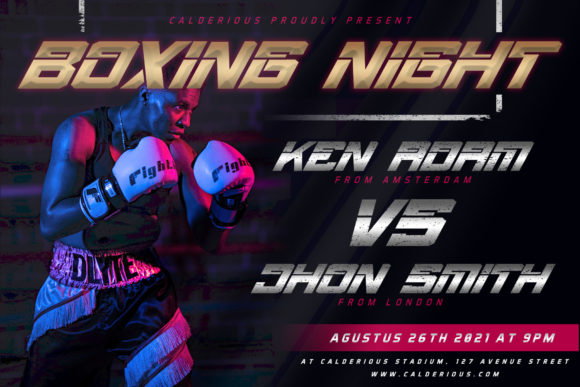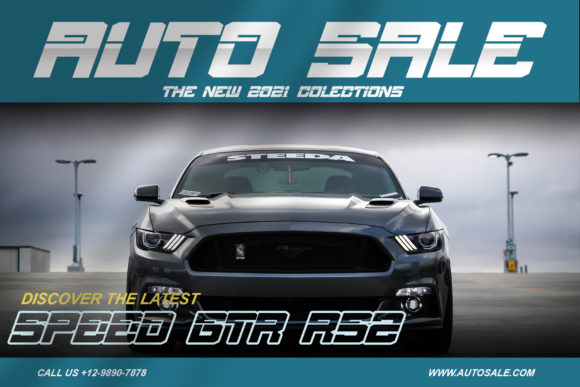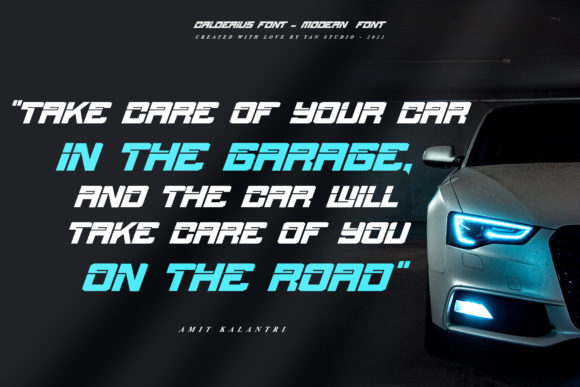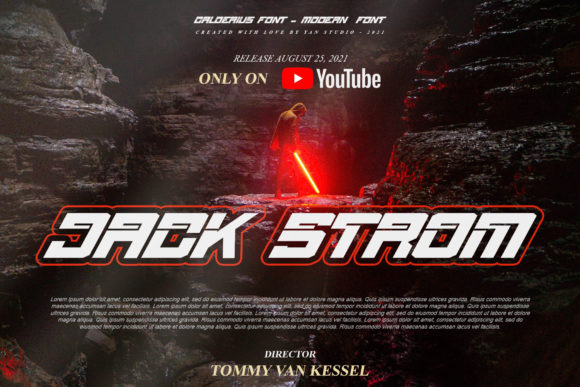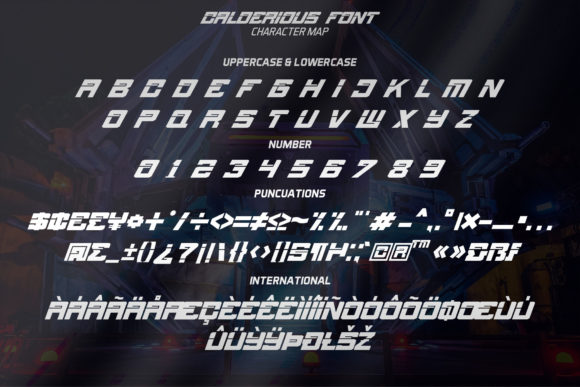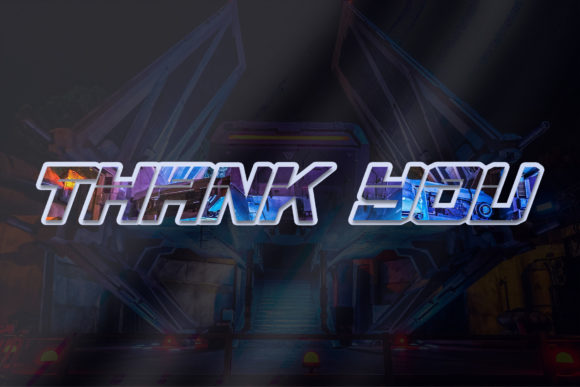
The Quest for the Perfect Font: Discovering Calderious
I still remember the design project that led me to Calderious. I was working on a futuristic website for a tech startup, and I was struggling to find the right font. The client wanted something bold, modern, and sporty, but I just couldn’t seem to find the perfect fit. That was until I stumbled upon Calderious, a bold and robotic display font that instantly caught my attention.
An Honest Review of Calderious
So, what makes Calderious so special? Here are a few things I love about this font:
- ✨ Bold and eye-catching: Calderious is perfect for making a statement. Its bold design ensures that your text will stand out, whether you’re using it for a website header, business card, or social media post.
- ✅ Robotic and techno feel: The font’s robotic design gives it a futuristic feel that’s perfect for tech-related projects or designs that require a sporty touch.
- ⚡️ Highly versatile: Calderious can be used for a wide range of projects, from web designs to print materials.
Of course, no font is perfect, and Calderious has a few quirks:
- 🤔 Limited use for body text: Due to its bold design, Calderious is best suited for headlines and titles. It’s not ideal for body text, as it can be overwhelming to read in large blocks.
- ⚠️ Some glyphs may not be available: As with any font, some glyphs or special characters may not be available in Calderious. Be sure to check the font’s specifications before using it for a project.
The Story Behind Calderious
Calderious was designed by a team of designers who wanted to create a font that would capture the essence of technology and innovation. The font’s robotic design is inspired by the futuristic and sporty themes that are popular in modern design.
| What is Calderious? | Calderious is a bold and robotic display font. |
| What is Calderious best used for? | Calderious is best used for headlines, titles, and other design elements that require a bold and futuristic feel. |
| Is Calderious available in different weights? | Currently, Calderious is only available in one weight. |